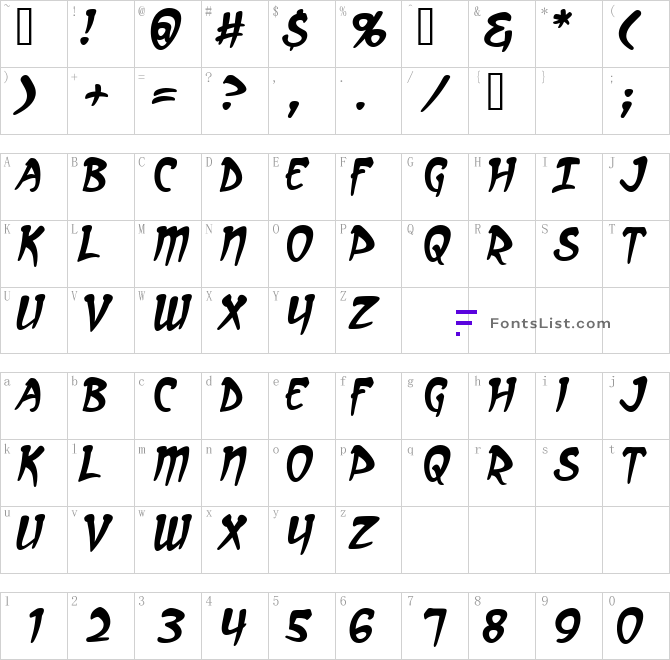
- Font Name:Arcanum
Arcanum-Italic.ttf is a very beautiful artistic font, Arcanum-Italic.ttf is widely used in the design and printing of various books and pictures,Arcanum-Italic.ttf has a strong visual impact,Arcanum-Italic.ttf is a commonly used font in newspapers, magazines and books, and is used in posters, e-commerce Poster design, store design, logo design, font design and other fields.Arcanum-Italic.